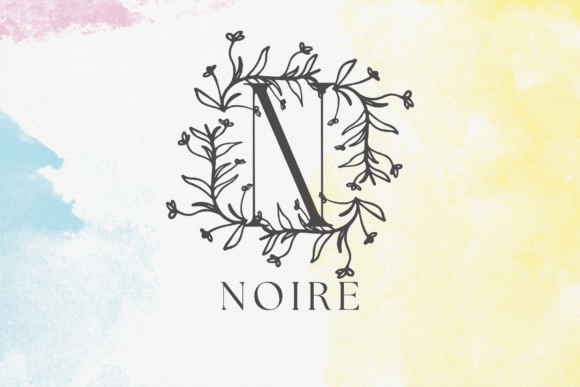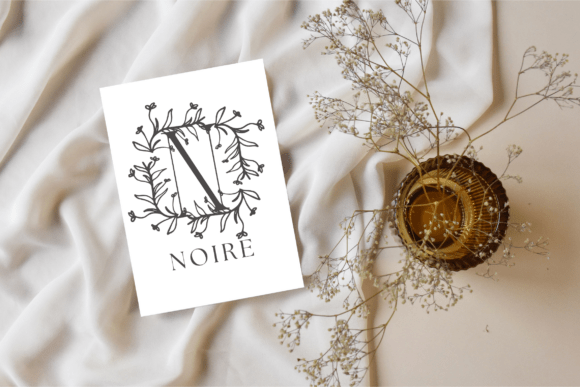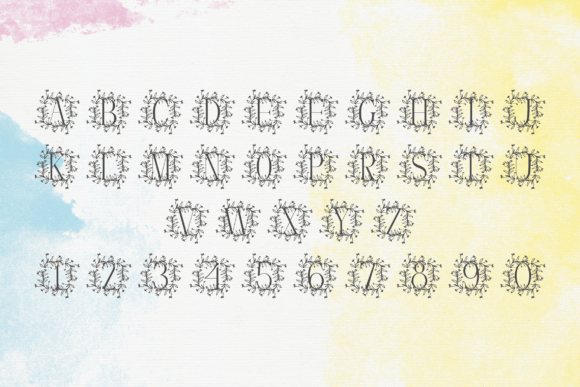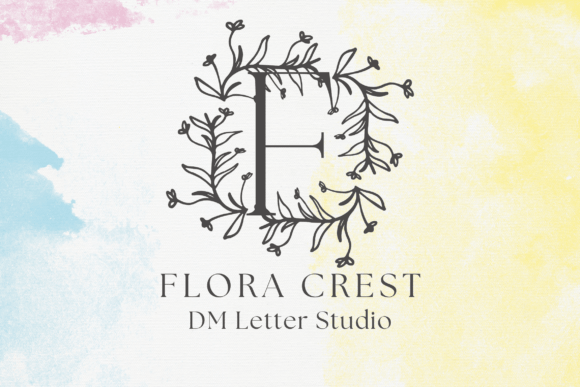
Introducing Flora Crest Monogram Font: Elegant Serif Monograms Inspired by Nature
Are you a designer or crafter looking for a unique and sophisticated font to elevate your designs? Look no further than the Flora Crest Monogram Font. This elegant serif monogram font is inspired by vintage botanical crests and floral heraldry, making it perfect for creating timeless monograms, wedding branding, and luxury packaging.
What is Flora Crest Monogram Font?
Flora Crest Monogram Font is a beautifully crafted font that combines classic curves with ornamental details, inspired by the natural world. Each uppercase letter is paired with refined floral elements, creating a stunning and sophisticated monogram that adds a touch of nature-inspired elegance to any design.
Key Features of Flora Crest Monogram Font
- Elegant Serif Monograms: Each uppercase letter is carefully crafted with refined serif details, creating a luxurious and sophisticated look.
- Floral Elements: Intricate floral elements are paired with each letter, adding a touch of nature-inspired beauty to your designs.
- Timeless Design: The font’s classic curves and ornamental details ensure that your designs will stand the test of time, remaining elegant and sophisticated for years to come.
- Perfect for Personalized Designs: Flora Crest Monogram Font is ideal for creating personalized monograms, wedding branding, and luxury packaging that requires a touch of elegance and sophistication.
Uses for Flora Crest Monogram Font
Flora Crest Monogram Font is a versatile font that can be used in a variety of design applications, including:
- Wedding Branding: Create elegant wedding monograms, stationery, and signage that reflects the couple’s personal style.
- Luxury Packaging: Add a touch of sophistication to luxury packaging, product labels, and branding materials.
- Personalized Gifts: Create customized gifts, such as monogrammed towels, linens, and home decor items.
- Stationery and Invitations: Design elegant stationery, invitations, and greeting cards that make a lasting impression.
Why Choose Flora Crest Monogram Font?
Flora Crest Monogram Font is a unique and sophisticated font that offers a range of benefits, including:
- High-Quality Design: The font is carefully crafted with attention to detail, ensuring a high-quality design that reflects your brand’s values.
- Customization Options: The font can be customized to fit your design needs, allowing you to create unique and personalized designs.
Flora Crest Monogram Font is an elegant serif monogram font that is perfect for designers and crafters looking to add a touch of nature-inspired sophistication to their designs. With its classic curves, ornamental details, and refined floral elements, this font is ideal for creating timeless monograms, wedding branding, and luxury packaging. Whether you’re a professional designer or a crafty DIY enthusiast, Flora Crest Monogram Font is a great choice for anyone looking to elevate their designs.